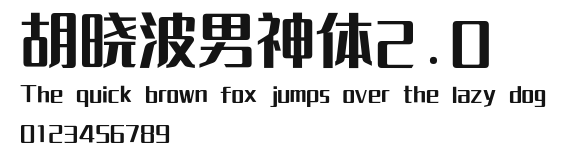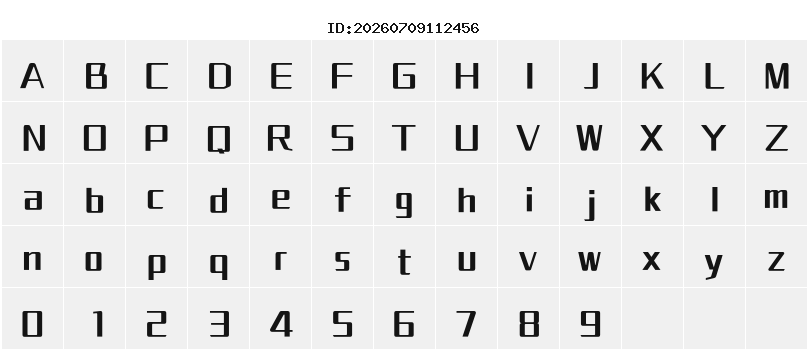
胡晓波男神体2.0 Preview
• Font Name: 胡晓波男神体2.0
• Full Font Name: 胡晓波男神体2.0
About 胡晓波男神体2.0.otf
胡晓波男神体2.0.otf is a modern, elegant sans-serif font designed for ultimate readability and visual harmony. Perfect for branding, headlines, web design, and print materials.